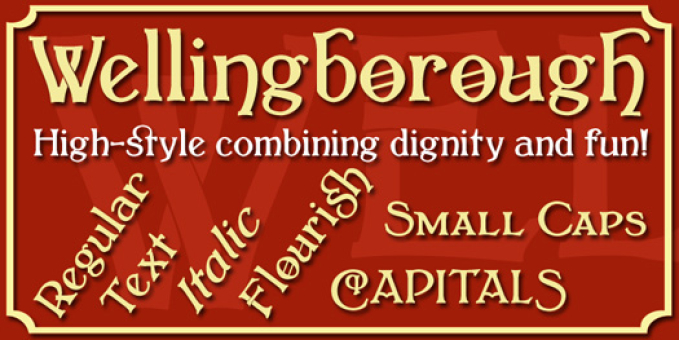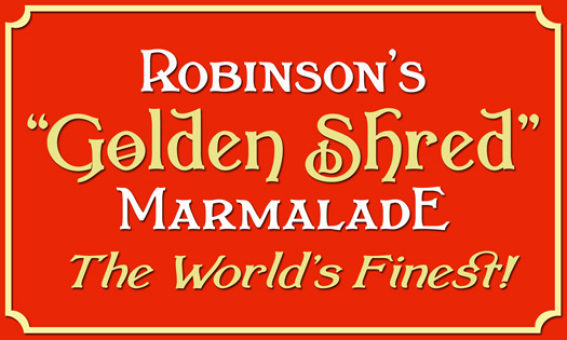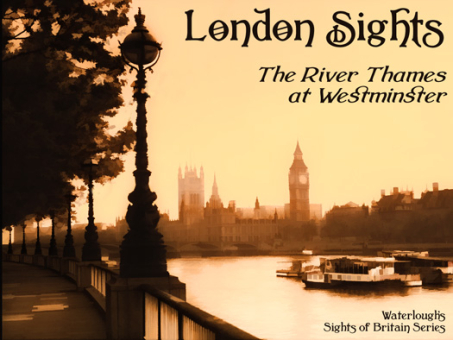
Wellingborough
Wellingborough is a family of six late-Victorian inspired faces, principally for display work and headings but also including a text form suitable for use in ‘feature’ paragraphs and short documents.
The regular, small capitals and italic forms provides good clear headings, with a modicum of individualism and flair about them, while the Flourish and capital faces carry the family to rather more elaborate-yet still readily legible- heights. The italic form also works well alone to suggest a sense of flow and movement.
The whole family is ideally suited for poster and advertising work, as well as book and record covers and period themed signage.
The regular, small capitals and italic forms provides good clear headings, with a modicum of individualism and flair about them, while the Flourish and capital faces carry the family to rather more elaborate-yet still readily legible- heights. The italic form also works well alone to suggest a sense of flow and movement.
The whole family is ideally suited for poster and advertising work, as well as book and record covers and period themed signage.
Designer: Paul Lloyd
Publisher: Handmadefont